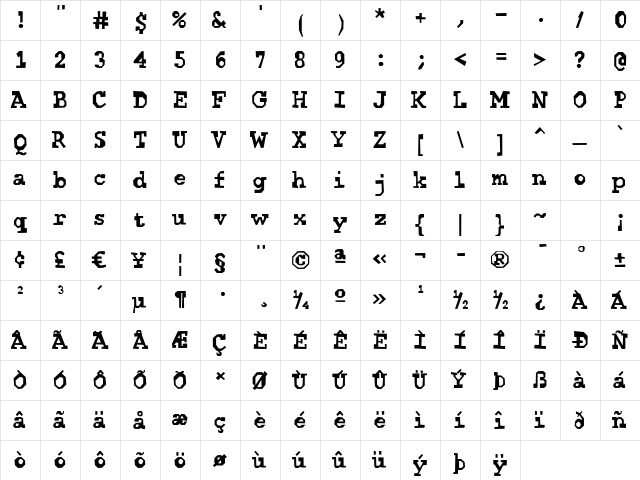
Quickstep Bold
Design Context for Quickstep Typeface
Quickstep takes a measured approach to typography — its balanced proportions and neutral character make it a reliable workhorse for both digital and print work. Its bold stroke weight gives it real presence on the page.
Pro Tip: Use Quickstep in both headline and body roles to test its range before committing to a single application.